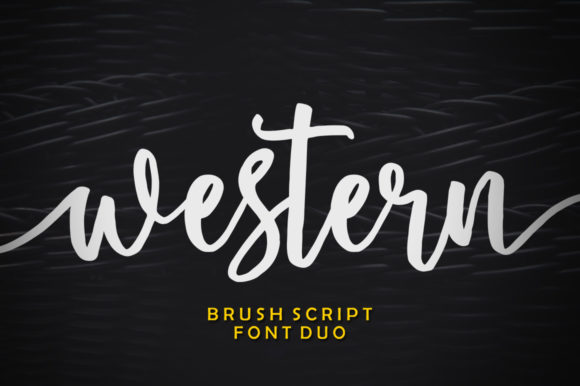
Behold, Western Duo Font – a masterful blend of beauty and versatility that captures the essence of elegance. This script font, brought to life by the creative genius of softcreative50, is a match made in heaven – a harmonious union of brushed style characters and sans serif aesthetics.
Western Duo Font is a symphony of visual delight, where the delicate brushstrokes of the script characters dance effortlessly alongside the clean lines and modern charm of the sans serif elements. The result is a font that exudes a spectacular and friendly feel, sure to leave an unforgettable impression on your audience.
This remarkable font collection is a versatile chameleon, effortlessly adapting to a myriad of design applications. From the timeless beauty of logos to the heartfelt warmth of greeting cards, Western Duo Font possesses the remarkable ability to transform your ideas into masterpieces. Unleash your imagination and let this font family be your creative muse, guiding you towards design triumphs.
Elevate your designs to new heights with Western Duo Font, a typographic marvel that captivates the senses and ignites the soul. Allow your designs to shine with unparalleled elegance, leaving a lasting impression that will echo through time.